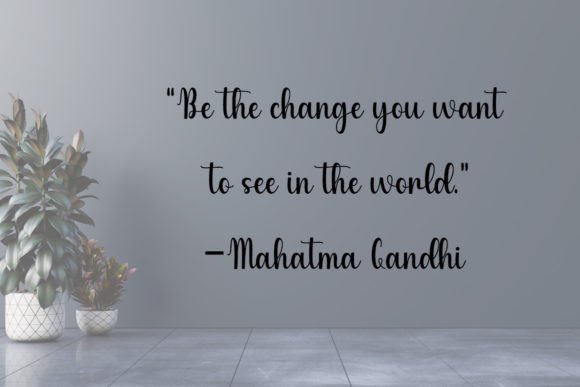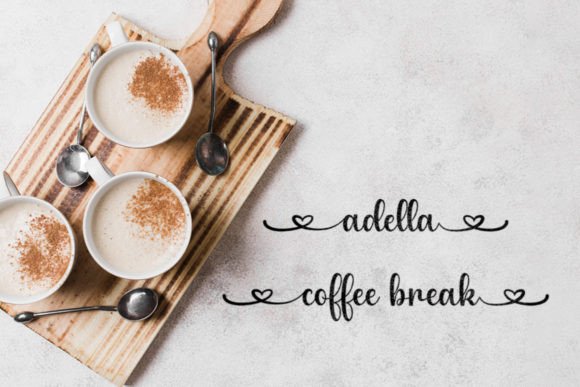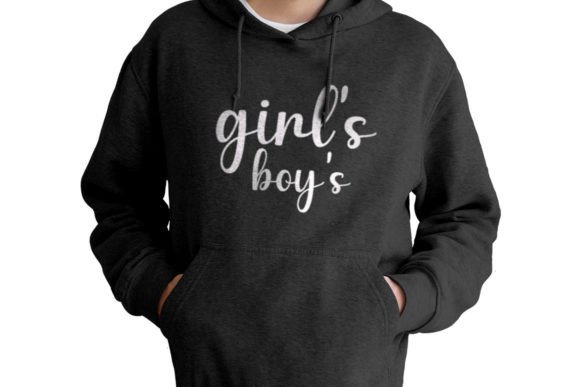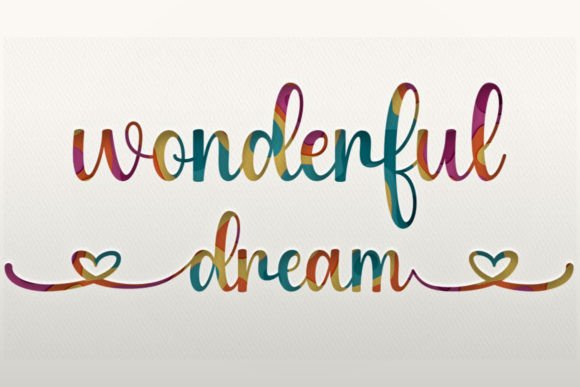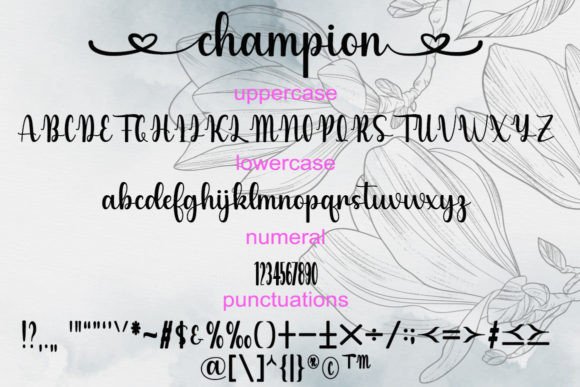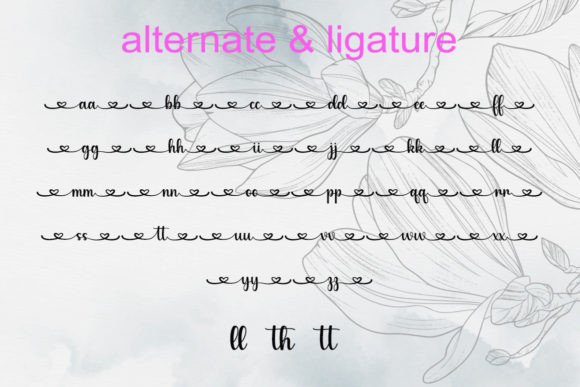
Introducing Champion Font: Elevate Your Designs with Elegance and Sophistication
Are you tired of using the same old fonts for your designs? Look no further! Champion Font is here to revolutionize your creative projects with its enchanting script style. This versatile font is perfect for a wide range of applications, from logos and branding to quotes, clothing, tote bags, business cards, websites, and many more. In this article, we’ll dive into the world of Champion Font and explore its features, benefits, and uses.
A Font that Exudes Elegance and Sophistication
Champion Font is a beautifully crafted script font that boasts an elegant and sophisticated style. Its flowing lines, intricate details, and perfect letter spacing make it a joy to use in various design projects. Whether you’re a designer, crafty DIY enthusiast, or a business owner looking to elevate your brand, Champion Font is sure to impress.
Endless Possibilities with Champion Font
One of the best things about Champion Font is its versatility. Its enchanting script style makes it perfect for:
- Logos and branding: Create a lasting impression with a custom logo that exudes elegance and sophistication.
- Quotes and posters: Add a touch of class to your inspirational quotes and posters.
- Clothing and accessories: Elevate your fashion designs with a beautiful font that’s sure to turn heads.
- Tote bags and stationery: Add a personal touch to your tote bags, business cards, and stationery.
- Websites and blogs: Enhance your online presence with a beautiful font that’s easy to read and visually appealing.
Benefits of Using Champion Font
So, why choose Champion Font for your design projects? Here are just a few benefits:
- Unique and eye-catching designs: Champion Font helps you create designs that stand out from the crowd.
- Elegant and sophisticated style: Add a touch of class to your designs with a font that’s both elegant and sophisticated.
- Versatility: Use Champion Font in various design projects, from logos and branding to quotes and posters.
Tips for Using Champion Font
To get the most out of Champion Font, here are a few tips:
- Experiment with different font sizes: Champion Font looks great in various font sizes, from small and delicate to large and bold.
- Pair it with other fonts: Combine Champion Font with other fonts to create a unique and eye-catching design.
- Use it consistently: Use Champion Font consistently across your designs to create a cohesive brand identity.
Champion Font is an enchanting script font that’s perfect for designers, crafty DIY enthusiasts, and business owners looking to elevate their brand. With its elegant and sophisticated style, versatility, and PUA encoding, Champion Font is sure to take your projects to the highest level. So, fall in love with Champion Font and discover a world of creative possibilities!